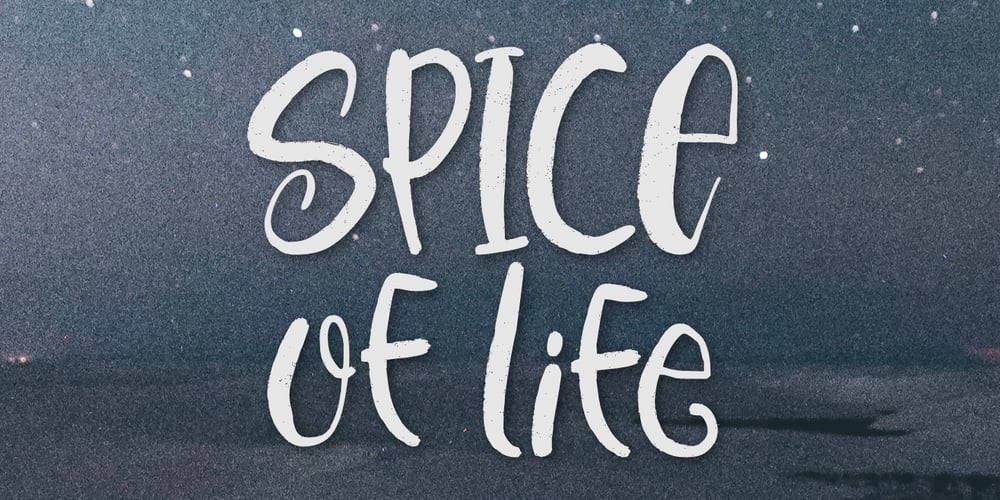
Spice Of Life
Spice Of Life font
Spice Of Life Font Family was designed by Aldy Sidik, Nurul Hidayani and published by Olivetype. Spice Of Life contains 1 styles and family package options. Bring a little extra flavor to your designs with Spice of Life, the perfect display font for logos, posters, and movie titles. Its unique brush typeface gives it a bold yet elegant look that will stand out in any design. Unleash your creativity with Spice Of Life and give life to your projects today!Spice of Life includes : Standard Latin Upper Case & Lower Case Numbers, symbols, and punctuations Multilingual Support. Fully accessible without additional design software Simple Installations Works on PC & Mac Thank You.